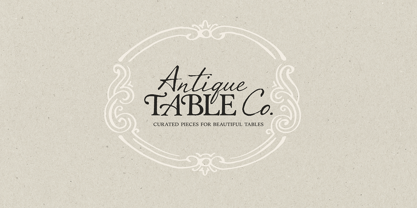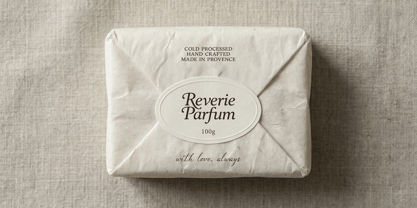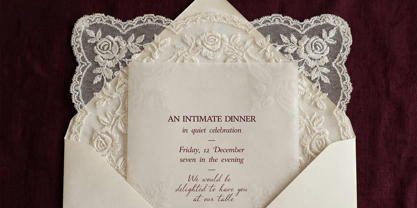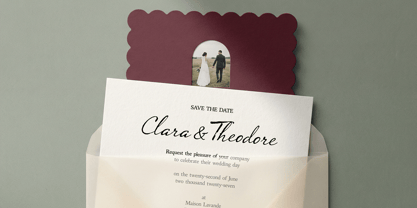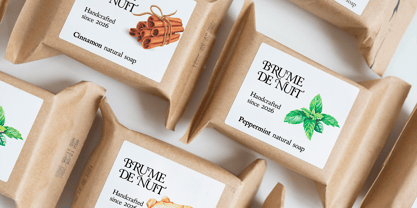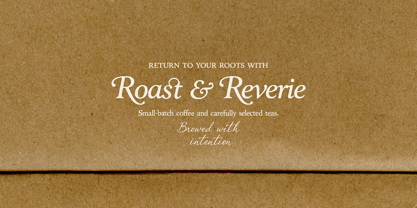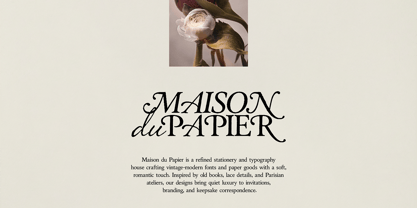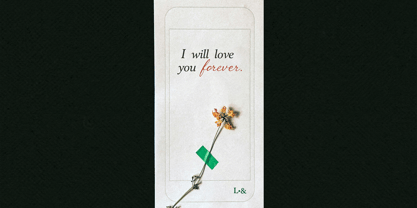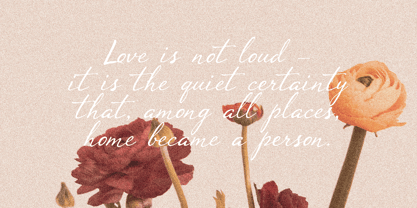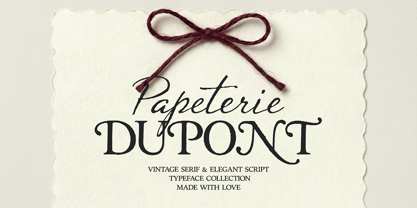
Papeterie Dupont
Papeterie Dupont is a refined vintage typeface collection inspired by antique French stationery and timeless editorial design. This family includes four complementary styles designed to work seamlessly together - from elegant invitations to elevated branding. The high-contrast serif brings structure and sophistication, while the expressive script adds warmth and personality. Subtle alternates and ligatures create a natural, handcrafted feel. Perfect for: • wedding stationery • branding & logos • packaging design • editorial layouts • luxury labels • social media graphics Language support: English, German, French, Spanish, Italian, Danish, Finnish, Portuguese, Swedish, Norwegian, Dutch, Indonesian, Luxembourgish, Icelandic, Cornish, Hungarian, Filipino, Turkish